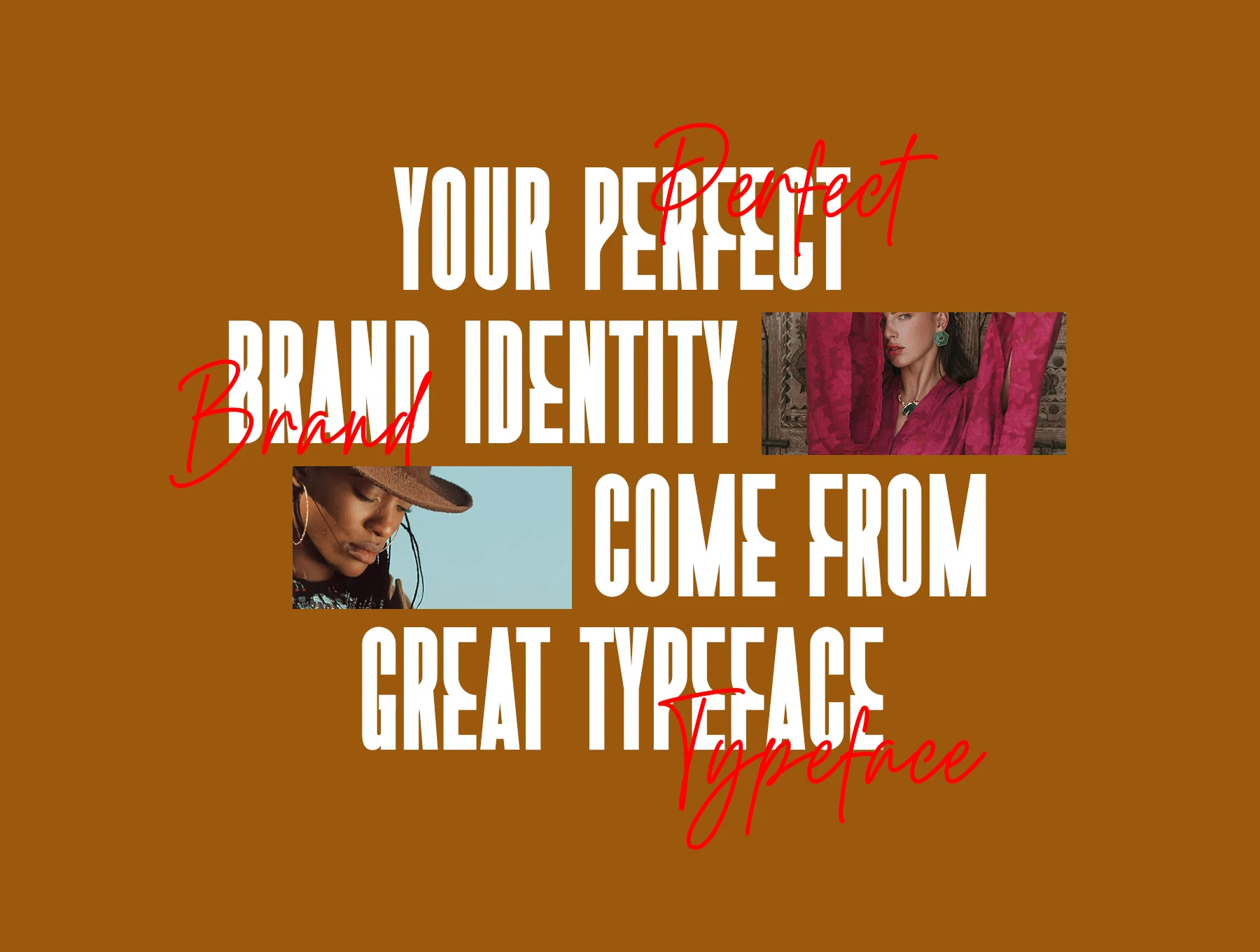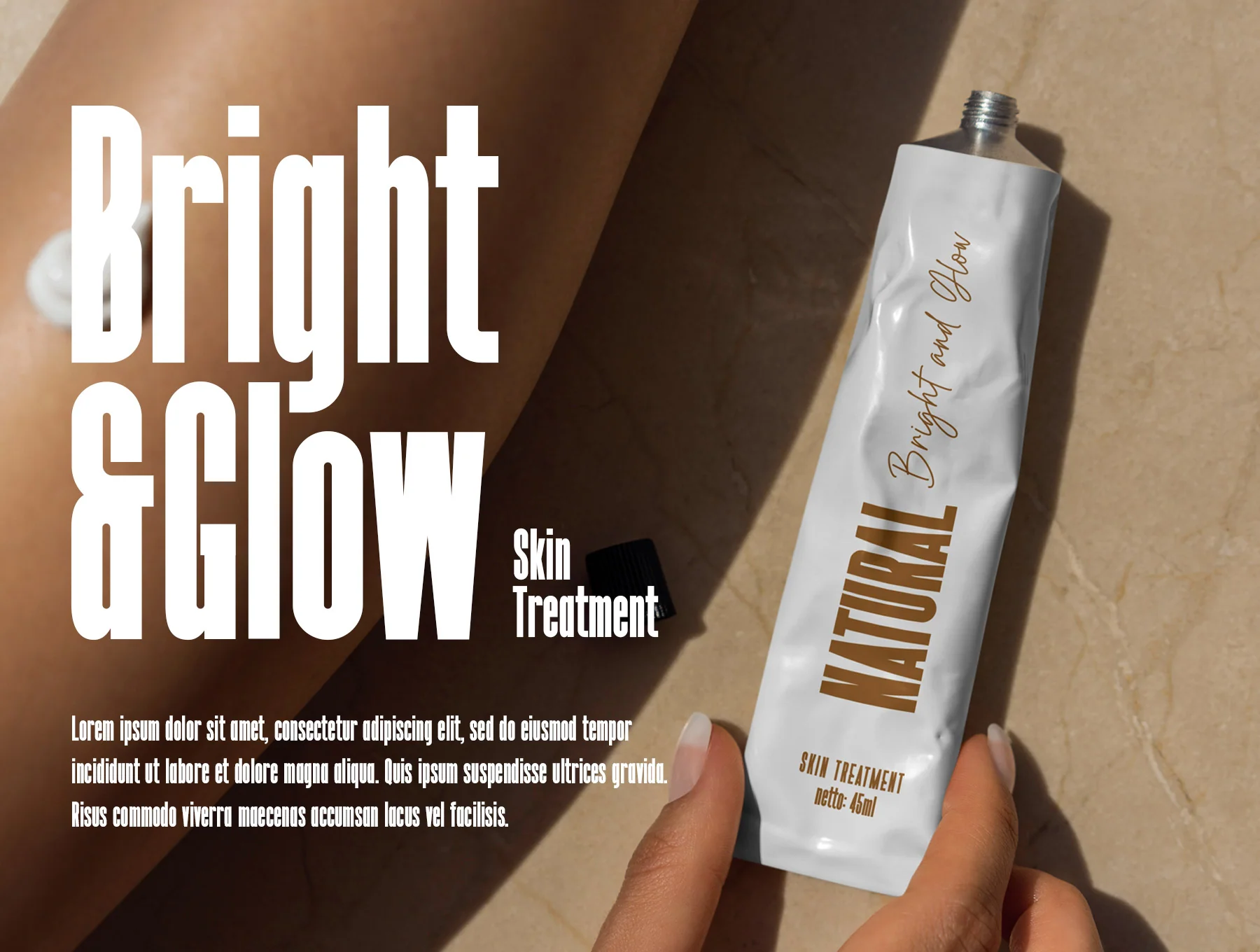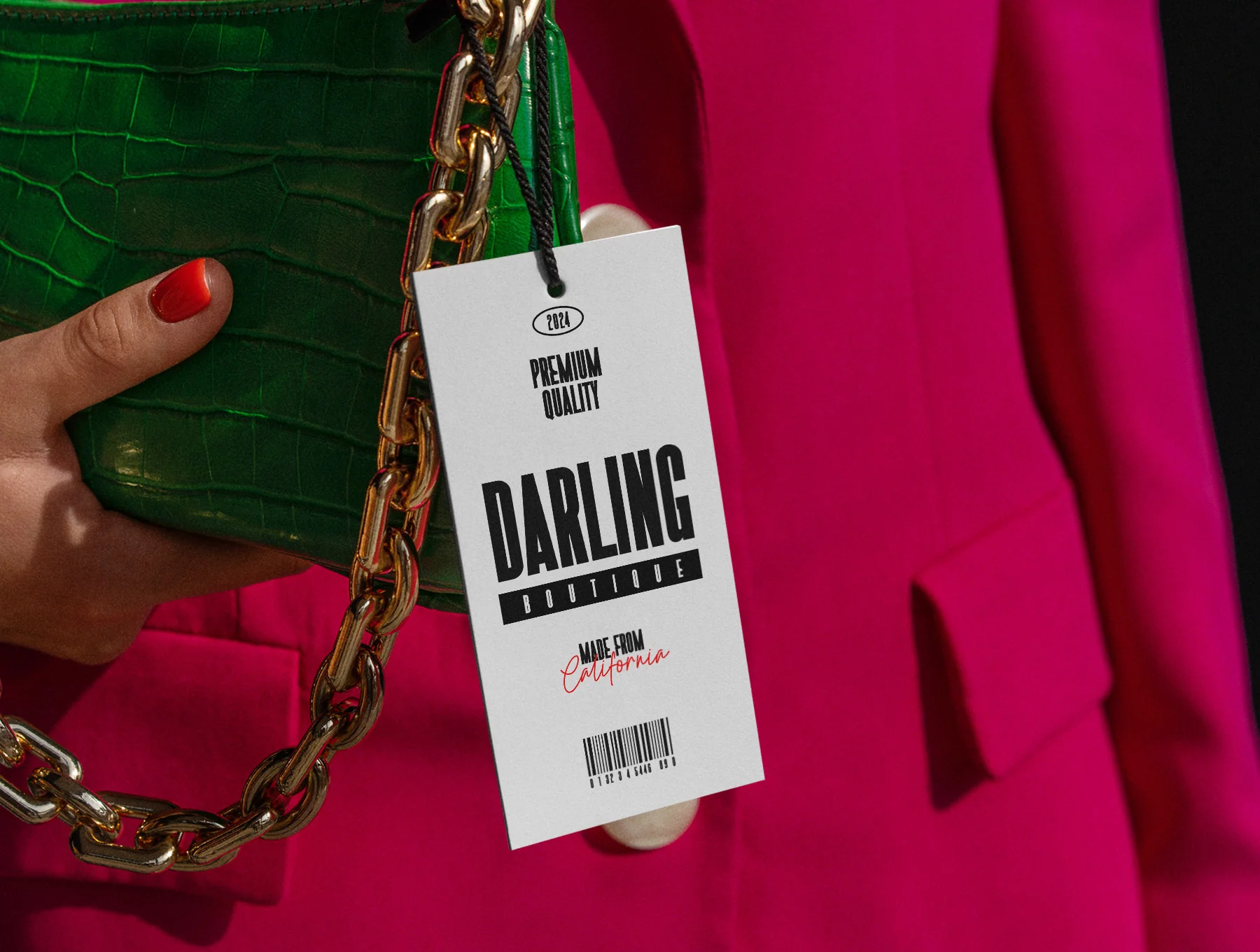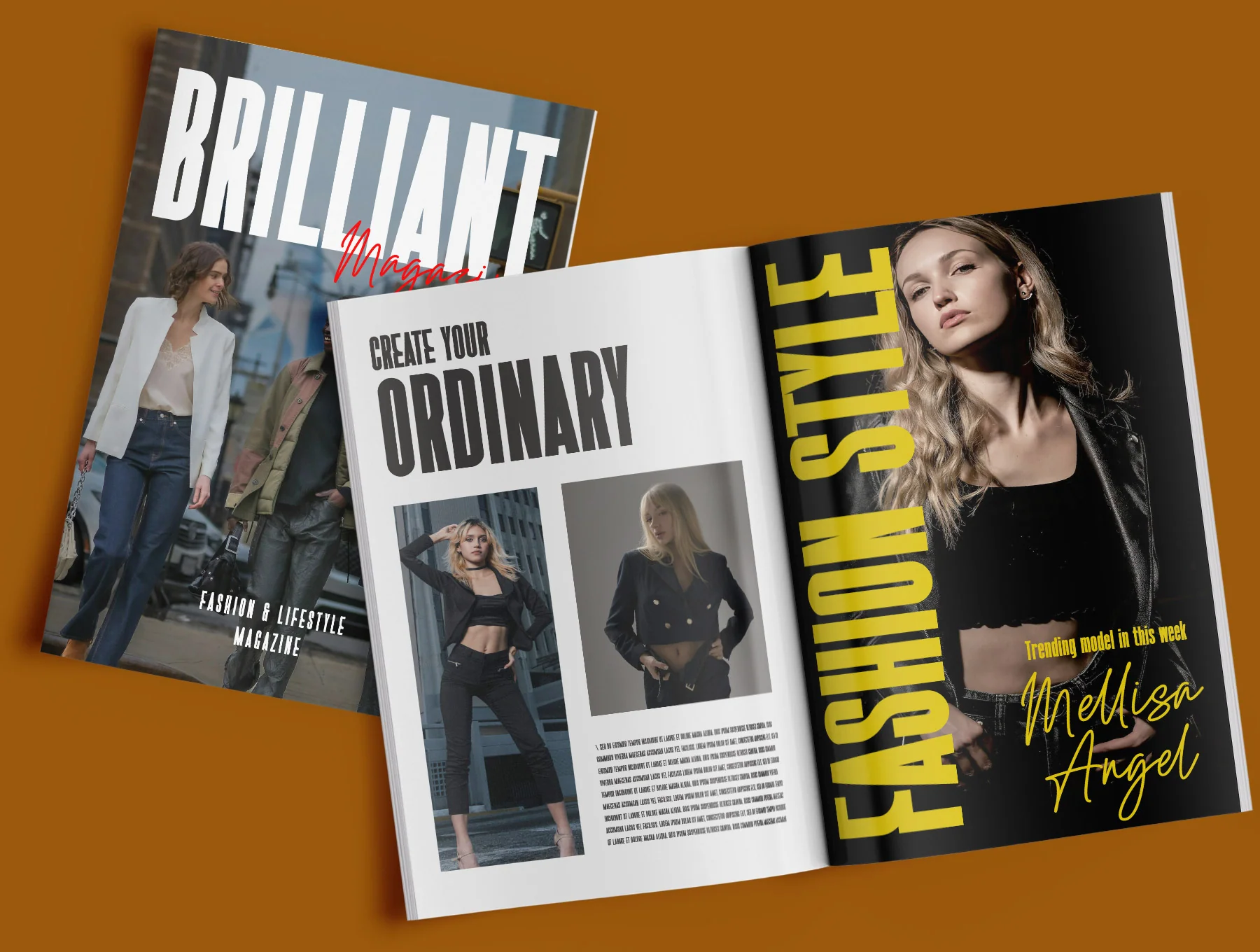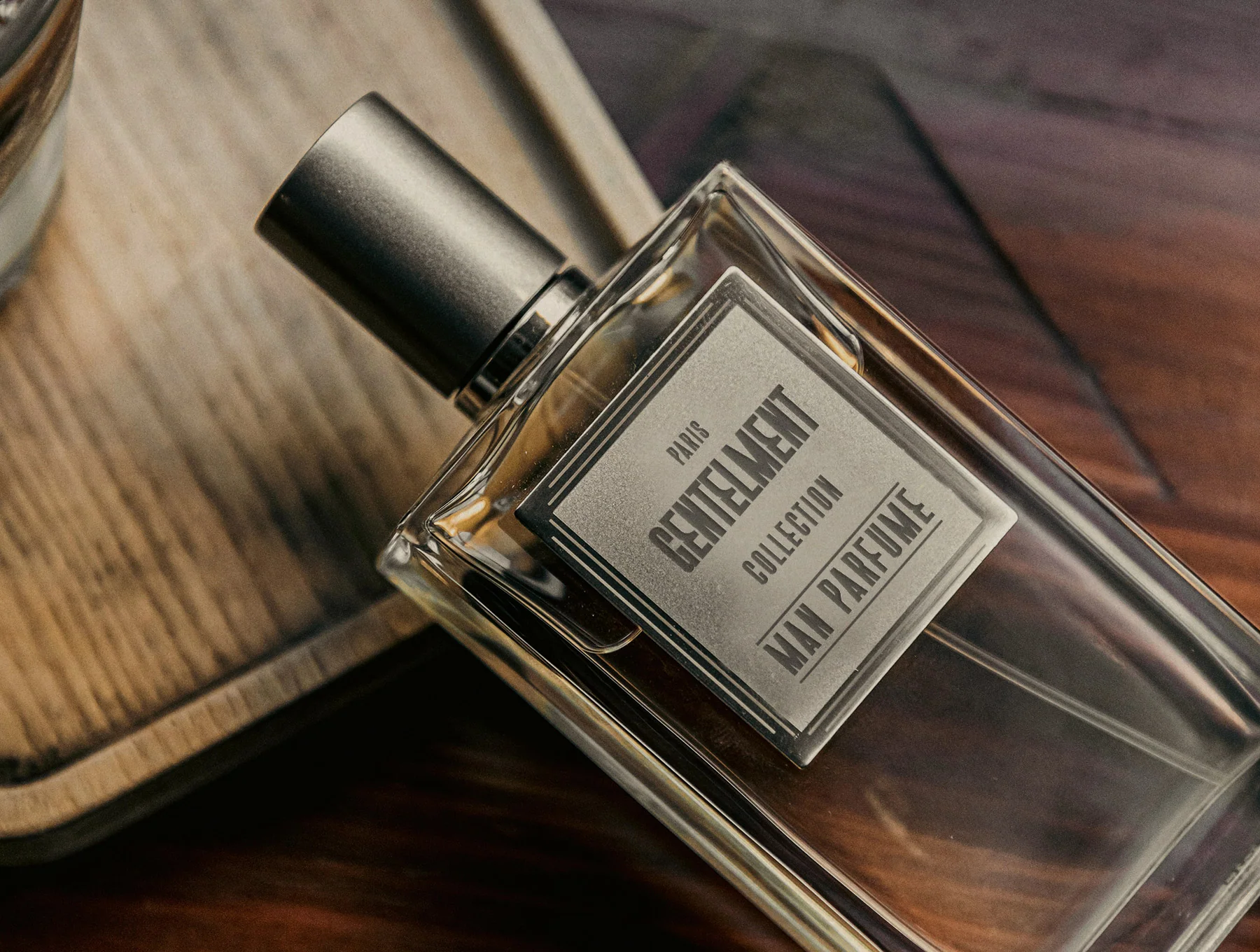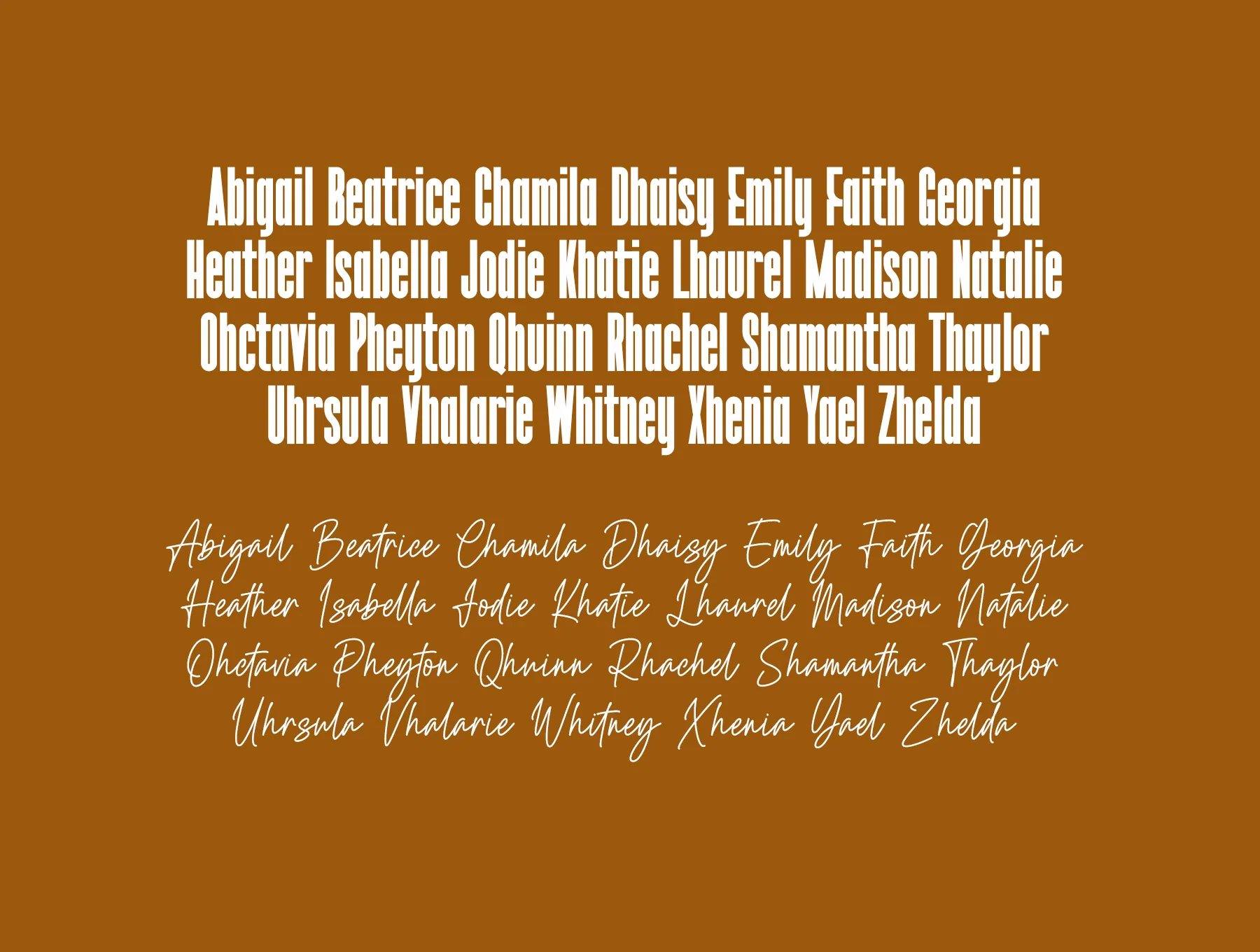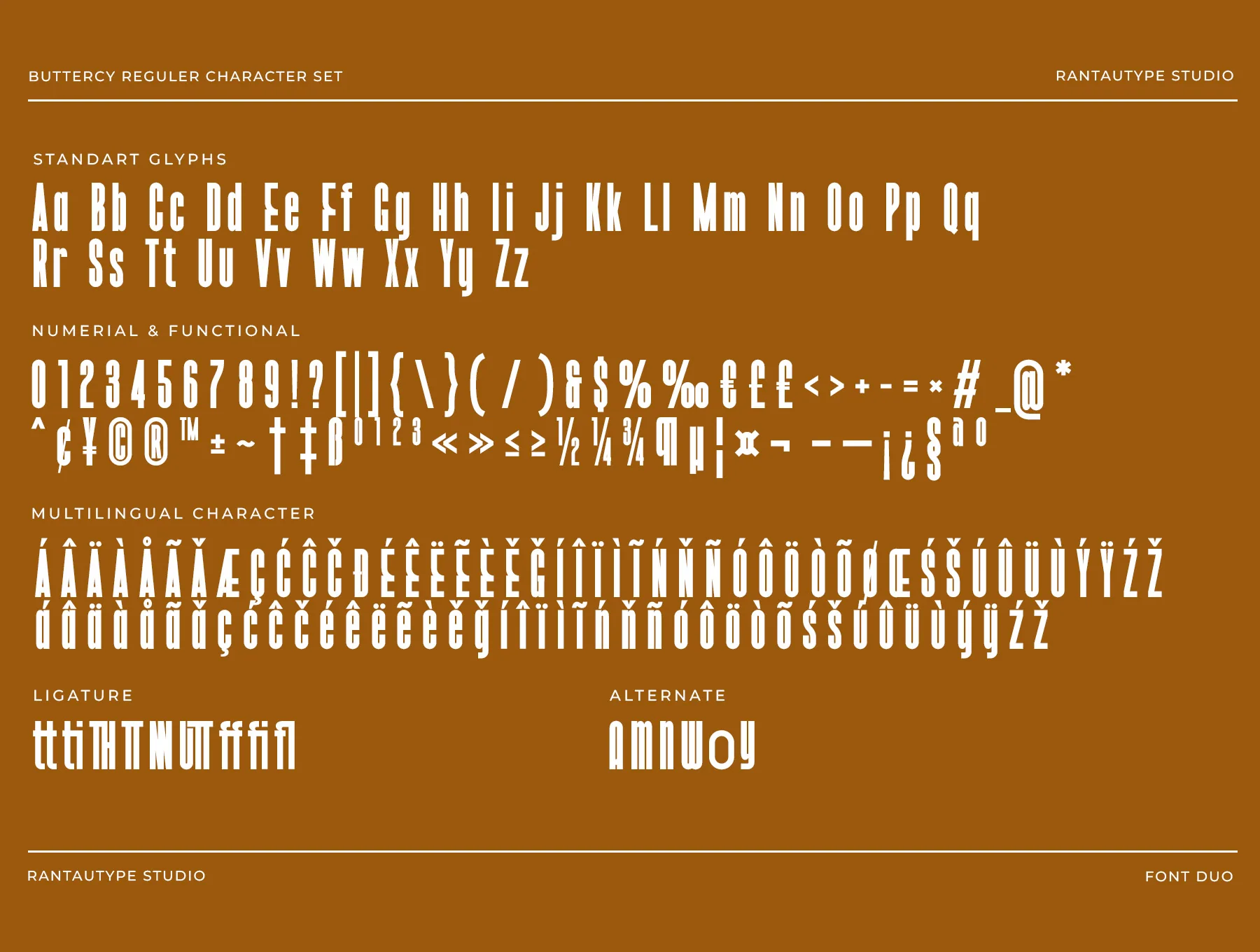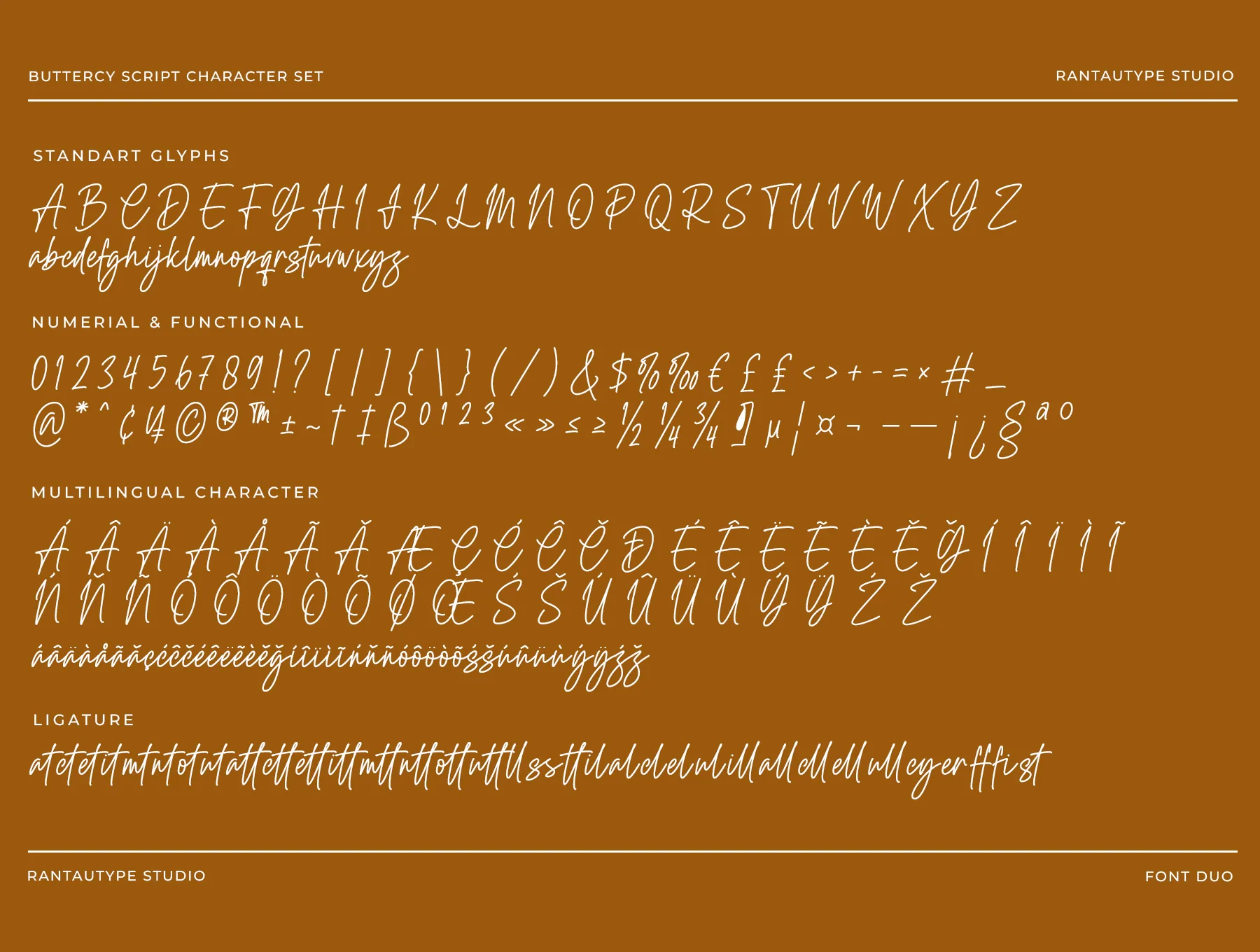
Buttercy Font Duo
Buttercy Duo Typeface
Standard character set
Numerals and practical symbols
Alternates with ligatures
Buttercy pairs a refined sans serif with a smooth script to give branding and design work a stylish look. Great for logos, ads, photo marks, stationery, labels, magazines, invitations and more. Includes regular and script styles in OTF, TTF and WOFF, standard glyphs, numerals, alternates, ligatures, multilingual support, easy setup, and PC/Mac compatibility.